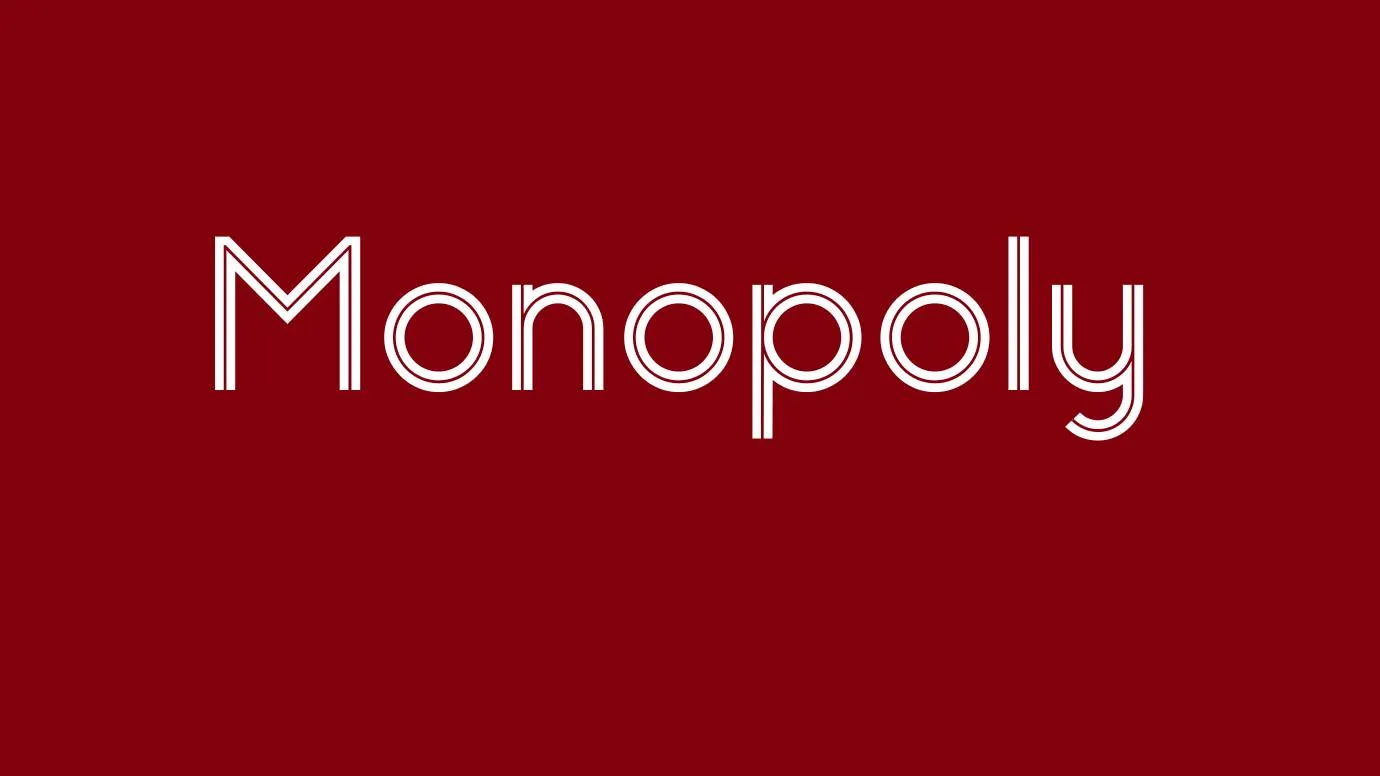
Monopoly Font Family is a monolinear sans serif font characterized by its soft and gentle shapes. This font draws inspiration from the one used in the logo of a board game originating from America, named Monopoly.
This font family comprises three weights including Light, Bold and Bold Inline, each weight of the font is full of western characters that are similar to Exo font family.
Monopoly Font Family
NameMonopoly Font
DesignerHyun Seok Choi
StyleSans Serif
Date Released2015